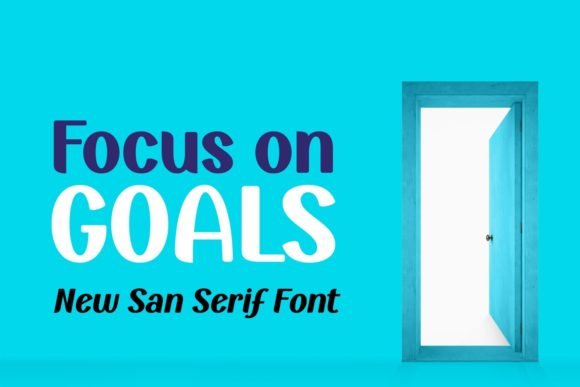
Enter the Focus on Goals Font, a simple yet adaptable display font that’s designed to help you bring your ideas to life. Friendly, fun, and casual, this font is the perfect companion for designers who want to create designs that truly stand out. Whether you’re working on a project for a client or just experimenting with new ideas, Focus on Goals Font is the perfect tool to help you stay focused and achieve your goals.
- Font Family: A clean sans-serif font designed to promote focus and productivity.
- Unique Characteristics: The font features a unique, modern design with a subtle emphasis on the letter “o” to create a sense of continuity and flow, making it ideal for goal-setting and productivity applications.
Designer Review: Focus on Goals Font
I was excited to dive into the Focus on Goals Font, a sans-serif typeface designed for clarity and motivation. Overall, I found it to be a solid choice for goal-oriented projects, but with some limitations. Let’s break it down.
- Clear typography: Focus on Goals Font delivers on its promise of clear, easy-to-read text, making it perfect for body copy.
- Goal-oriented flair: The font’s design incorporates subtle motivational elements, like a dash of green and a goal-oriented ‘goal’ symbol, which adds a nice touch to headings and titles.
- Comprehensive font family: The font family includes a range of weights, from light to bold, making it suitable for various design applications.
- Limited elegance: While the font is clear and readable, it may lack the sophistication and elegance of more premium sans-serif fonts.
- Slightly restrictive styling: The motivational elements may not be suitable for all design projects, limiting the font’s versatility.
The Focus on Goals Font is a solid choice for goal-oriented projects or applications where clear typography is a priority. While it may not be the most elegant font, it delivers on its promise and offers a unique flair that can add a motivational touch to designs.
The Focus on Goals Font is commonly used for motivational and goal-oriented designs, such as:
– Goal setting templates
– Motivational posters
– Business vision boards
– Personal development workbooks